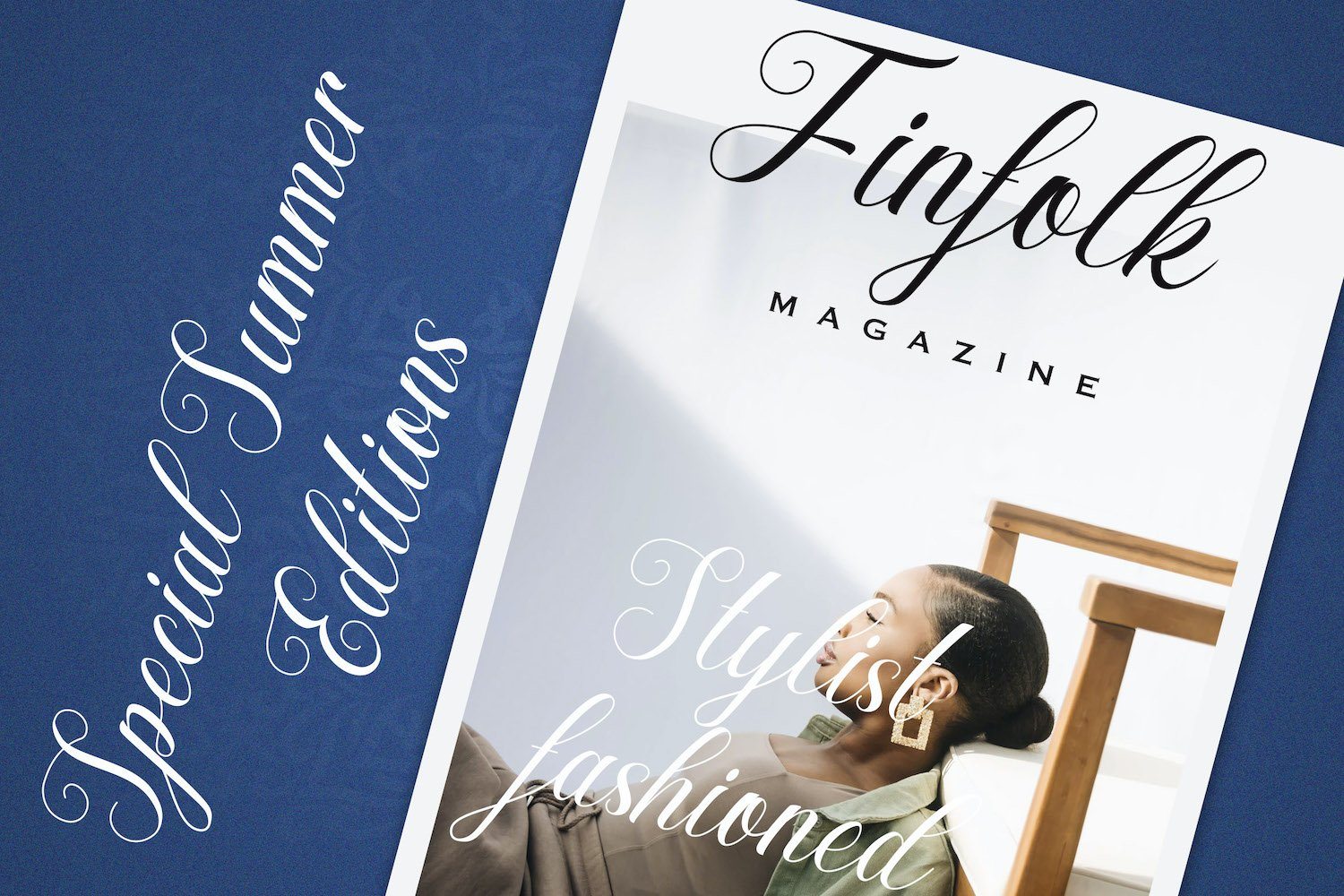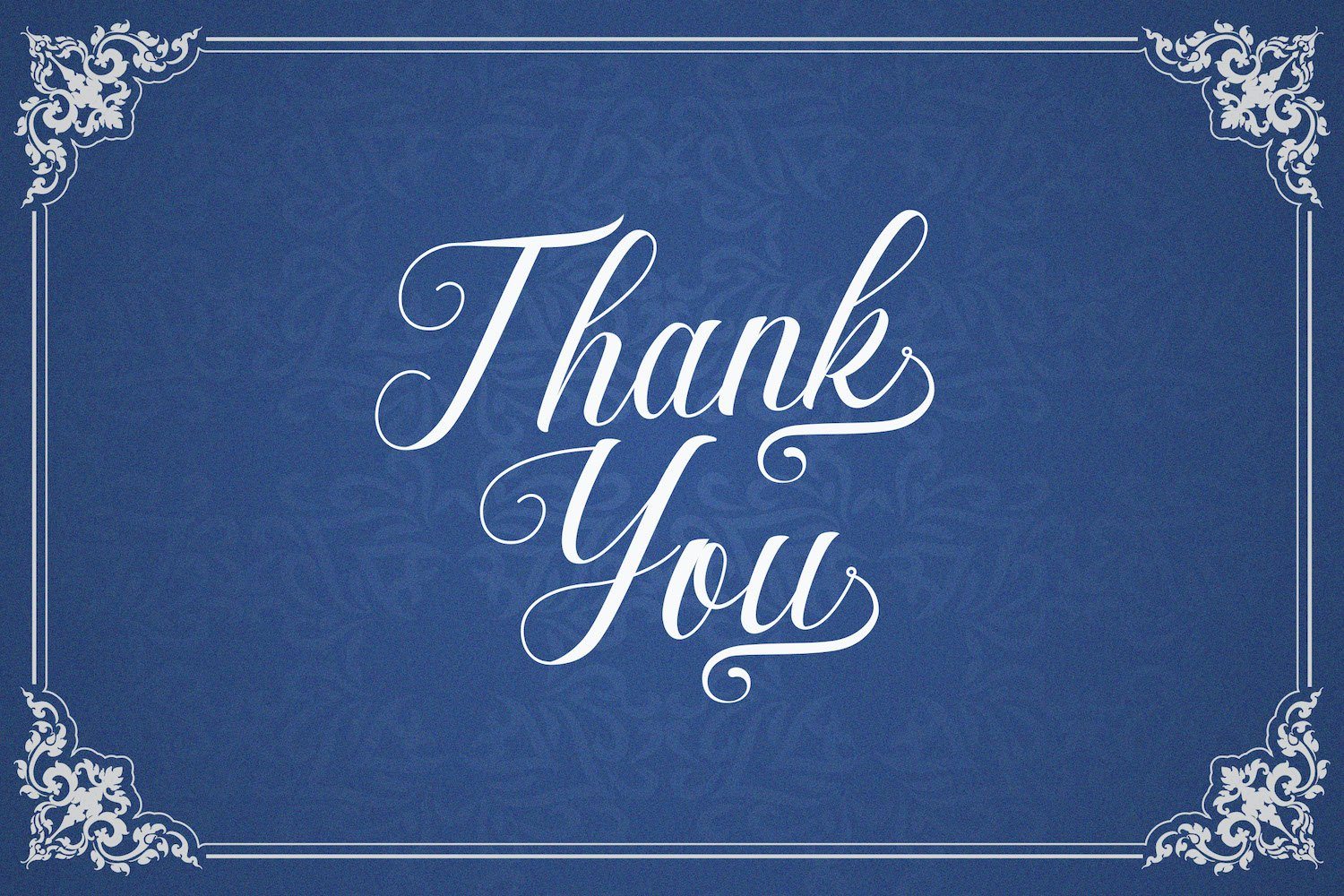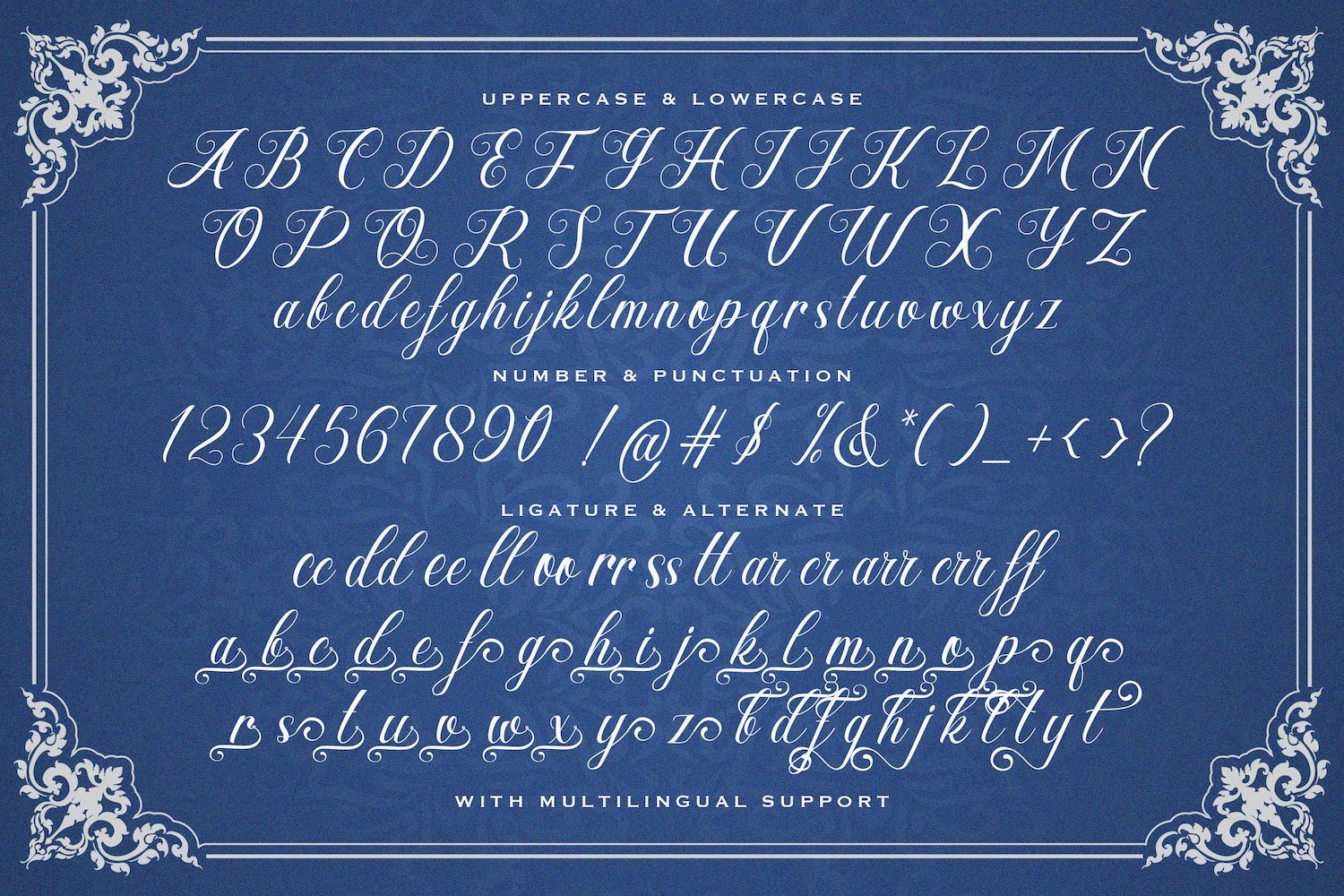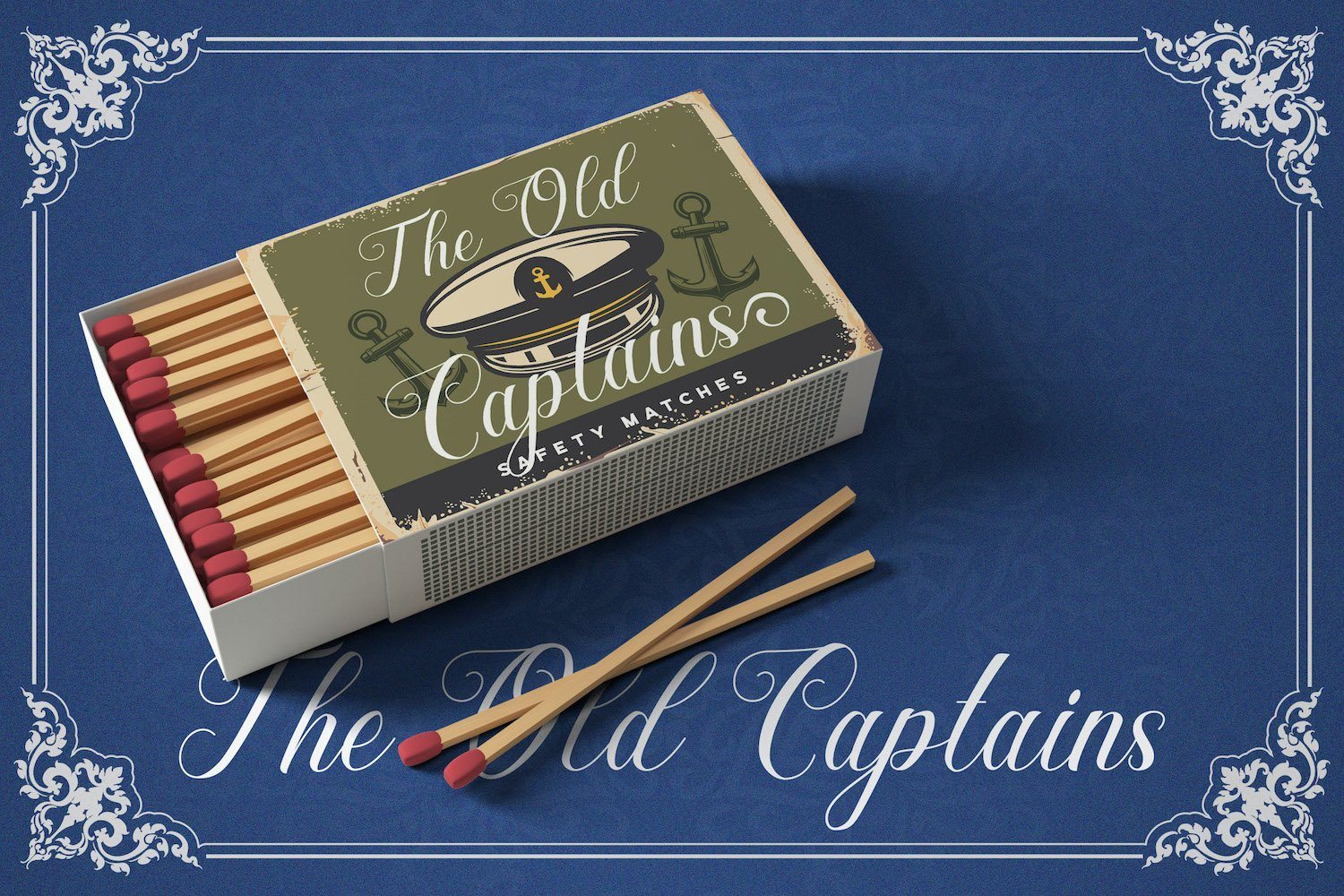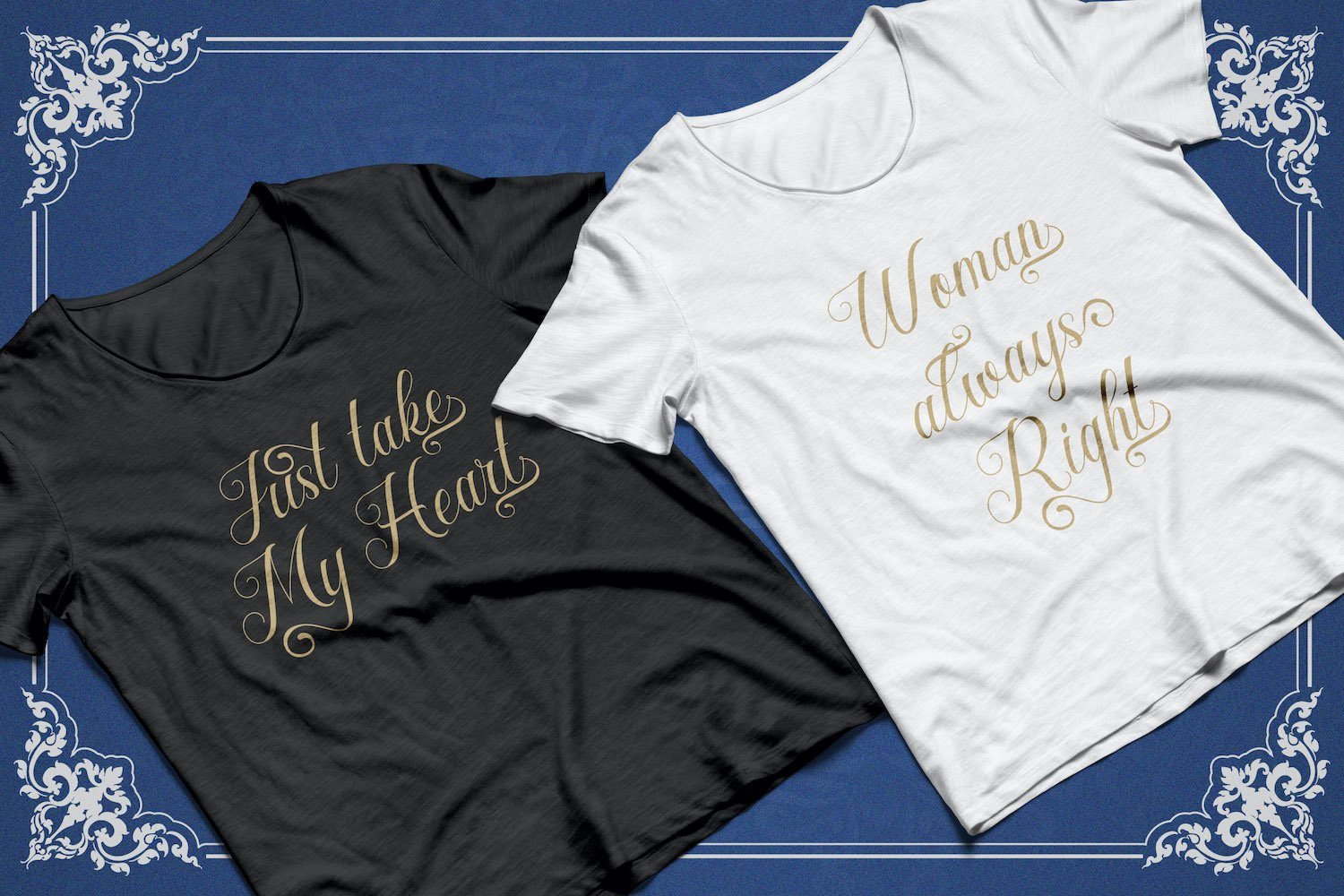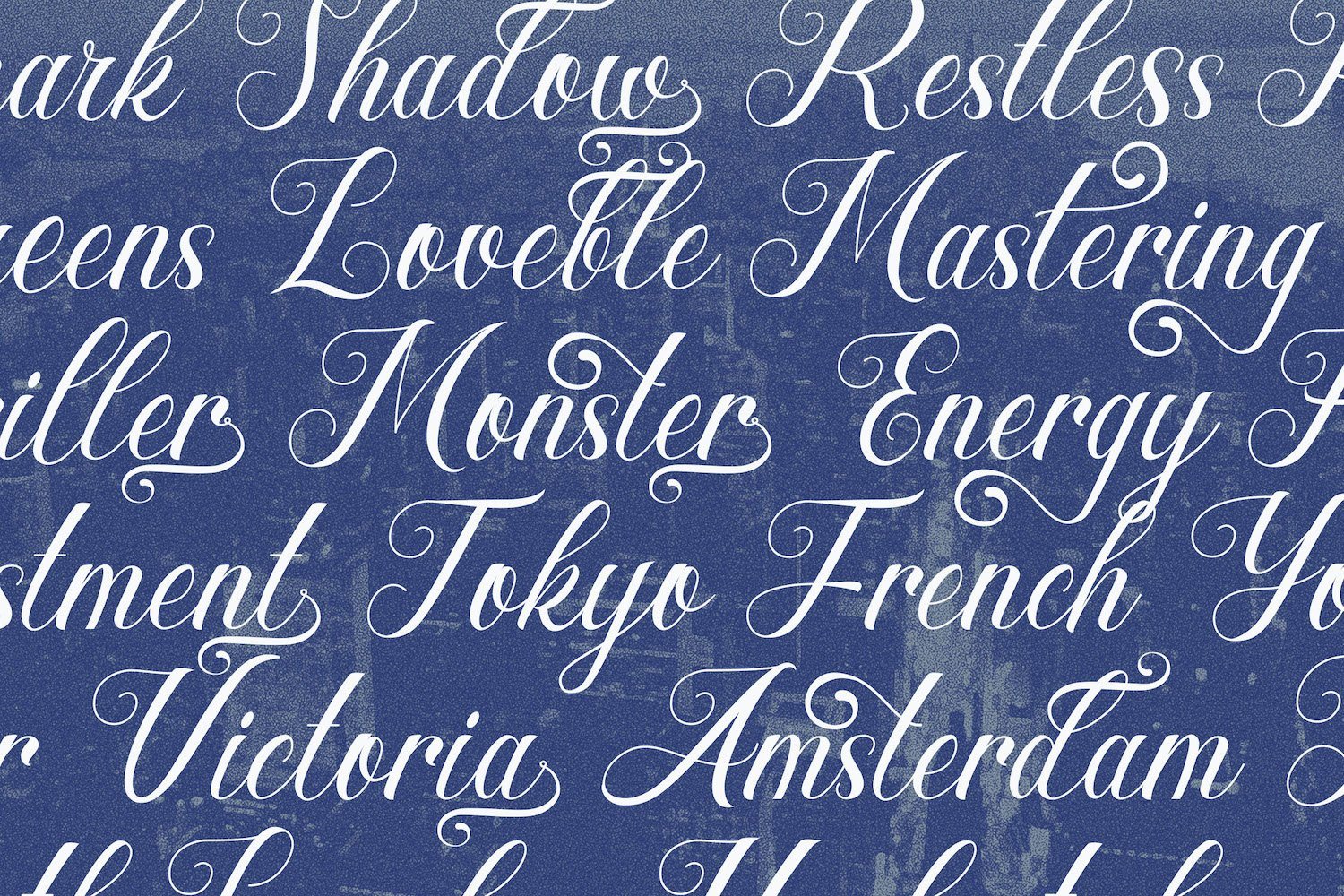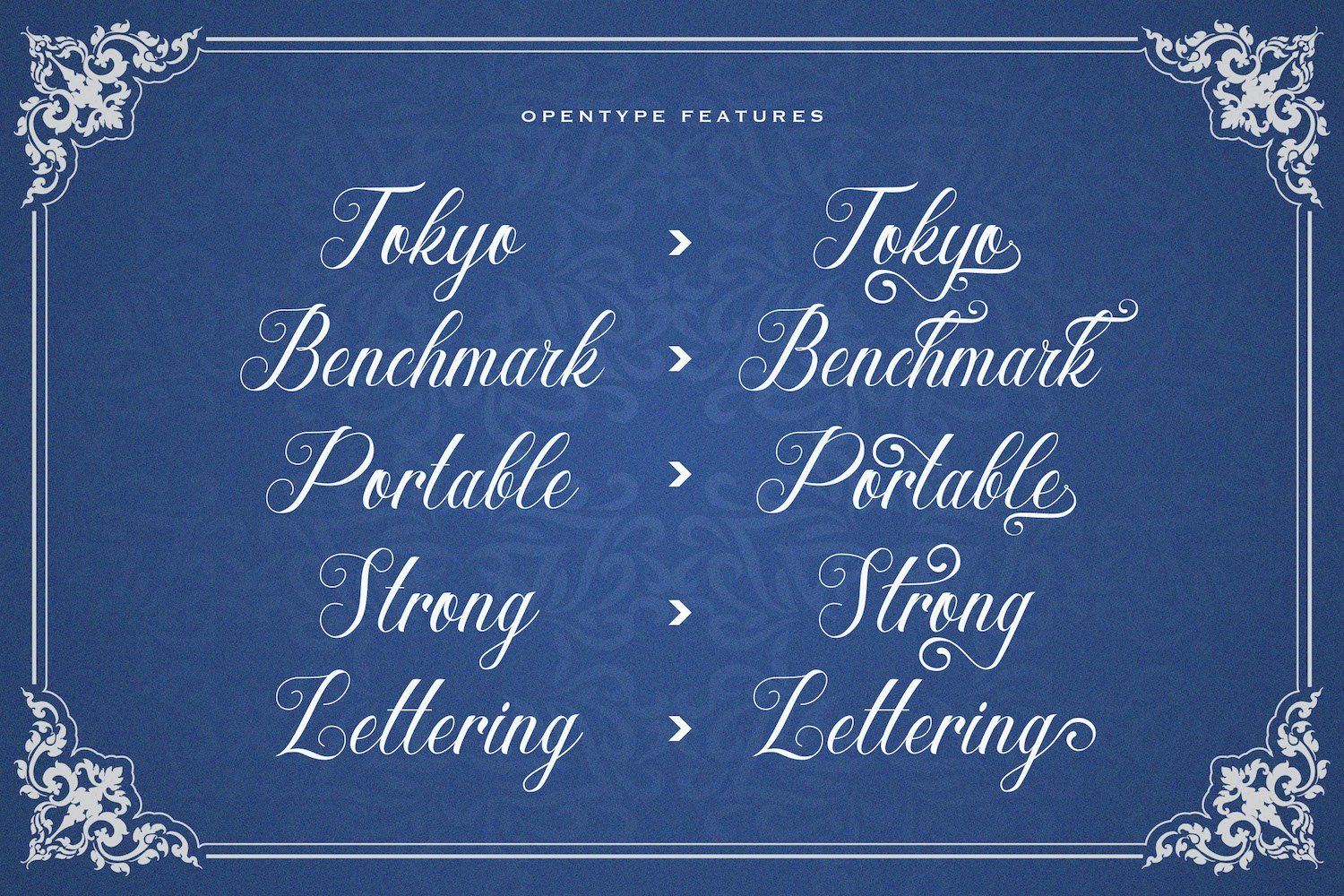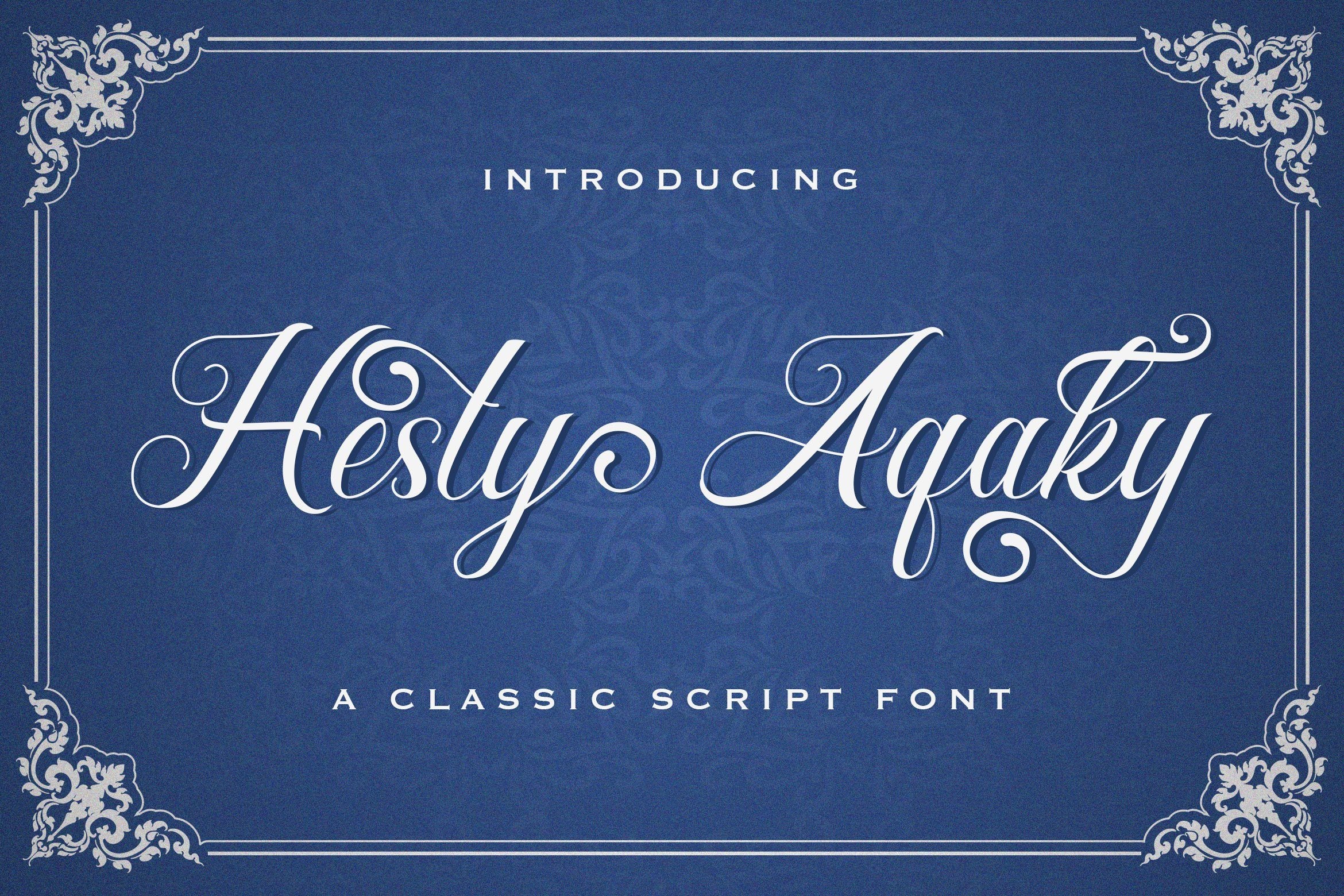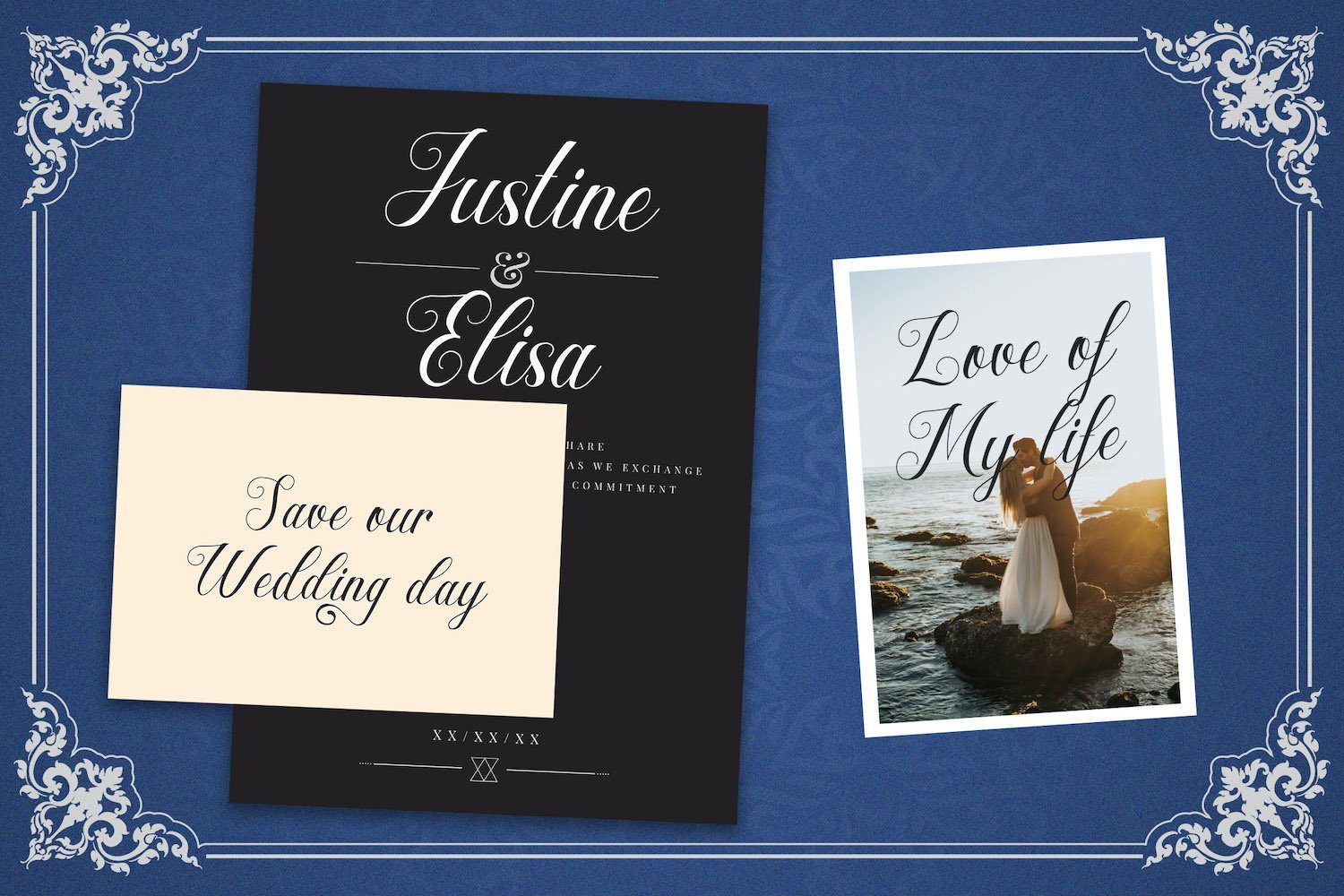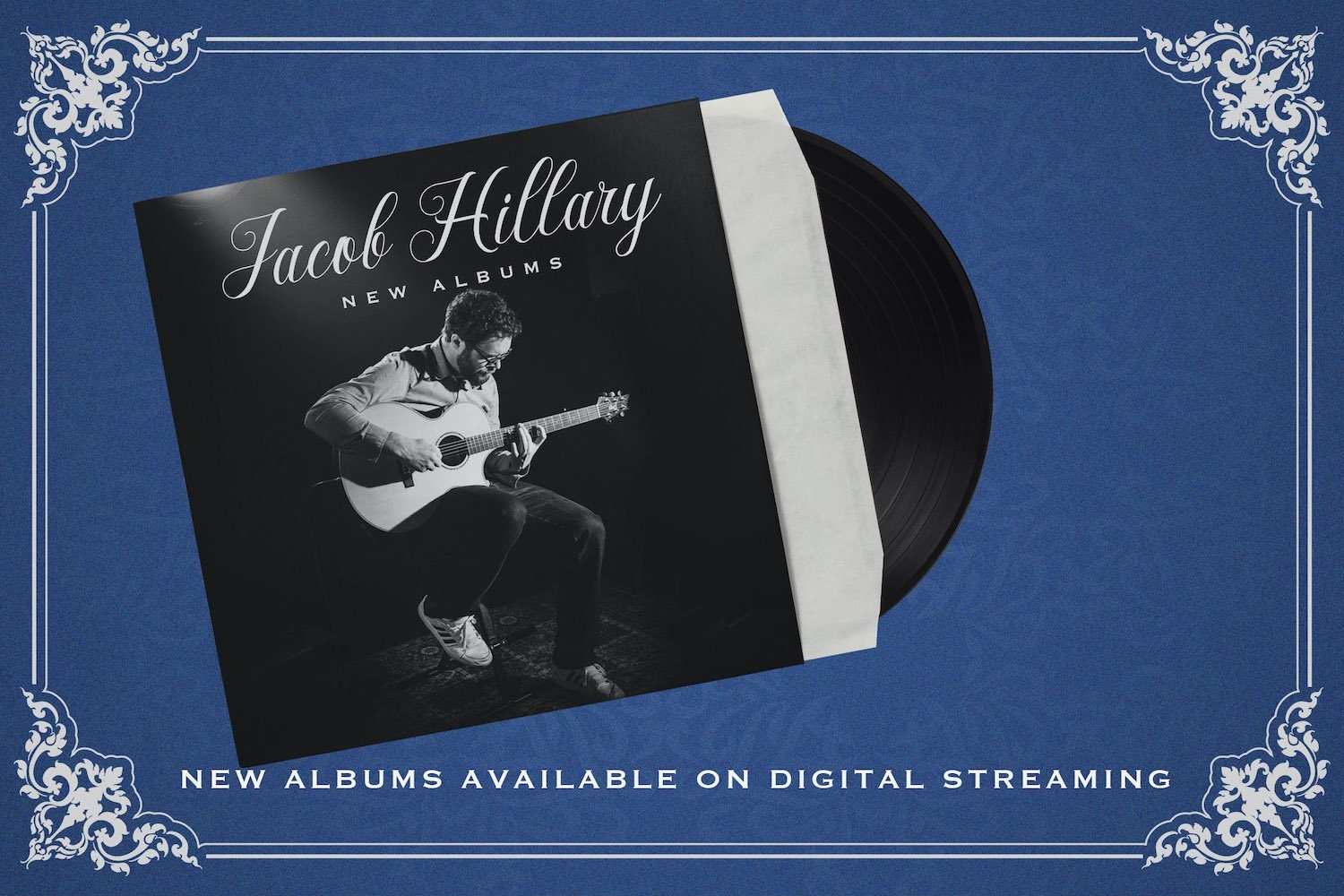
Hesty Aqaky – Modern Script Font
About Hesty Aqaky – Modern Script Font
Introducing Hesty Aqaky – Modern Script Font Hesty Aqaky is a modern script font. It will elevate a wide range of design projects to the highest level, be it branding, headings, wedding designs, invitations, signatures, logos, labels, and much more! This font is PUA encoded which means you can access all of the glyphs and swashes with ease! FEATURES – TTF/OTF/WOFF/WOFF2 – Stylistic Alternates – Ligatures – Uppercase and Lowercase letters – Numbering and Punctuations – Multilingual Support – Works on PC or Mac – Simple Installation – Support Adobe Illustrator, Adobe Photoshop, Adobe InDesign, also works on Microsoft Word Hope you Like it. Thanks.